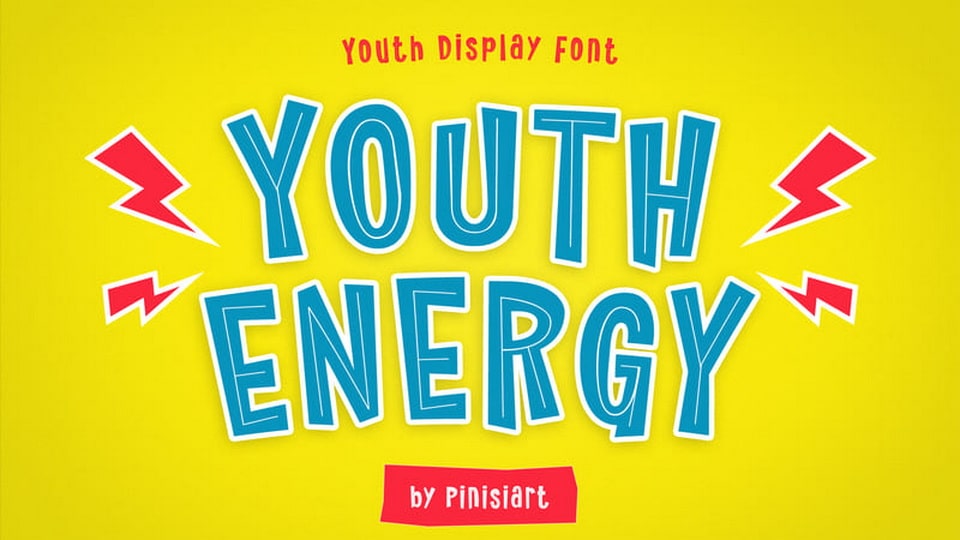
Download Youth Energy font, a playful display typeface. Fun and sort of carefree sans-serif that resemblance the young and eager to explore the spirit of the youth.